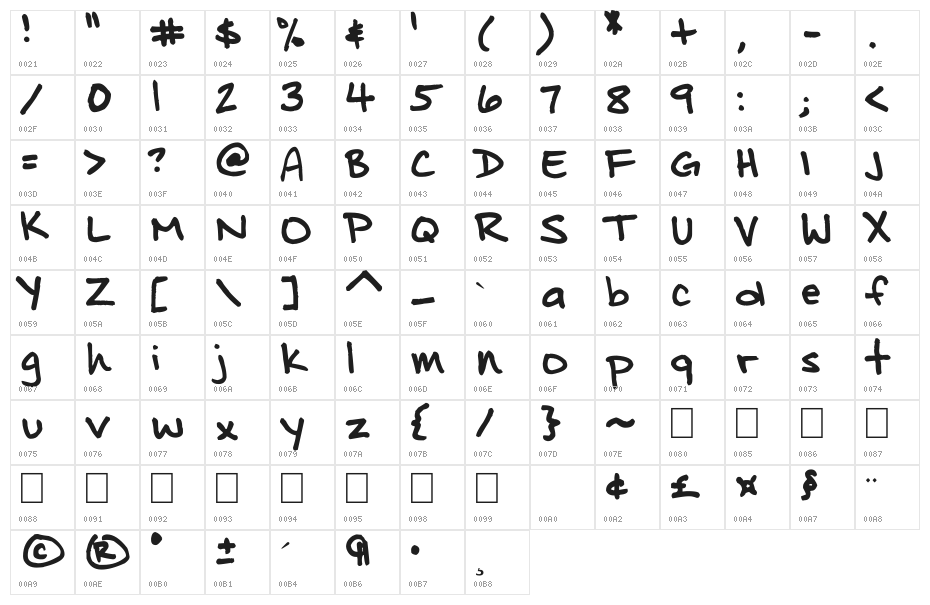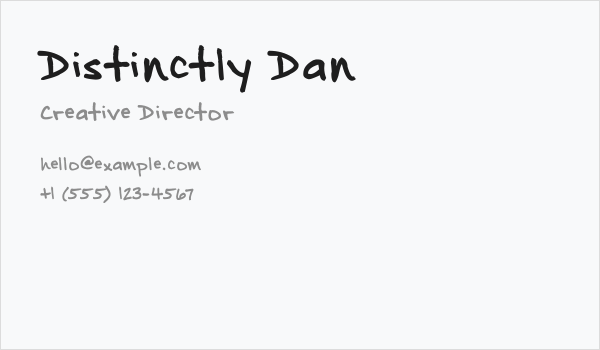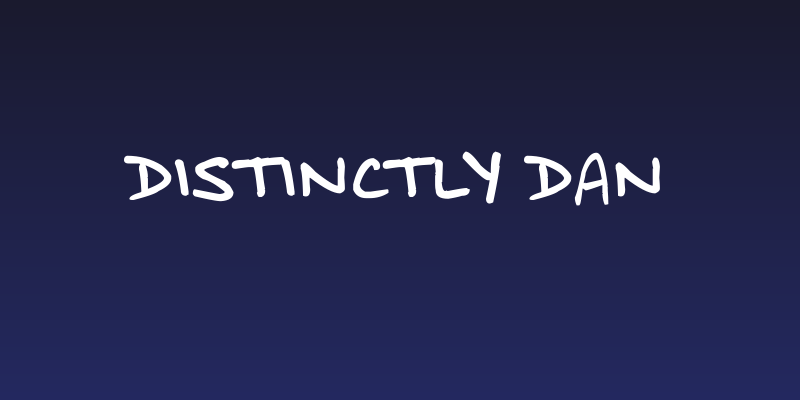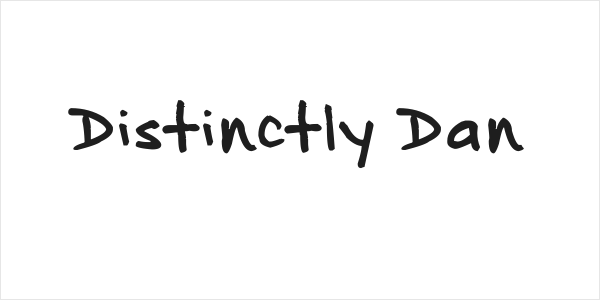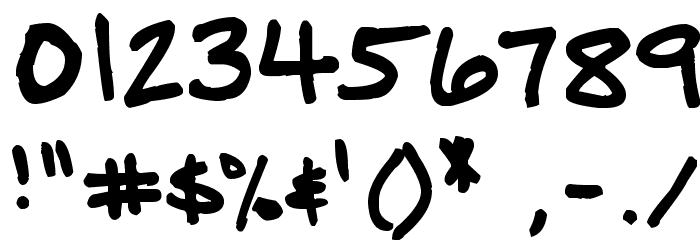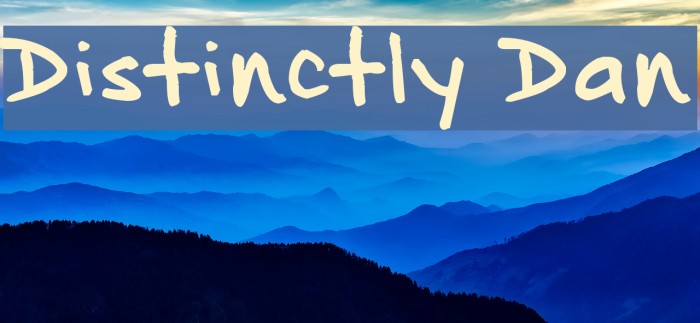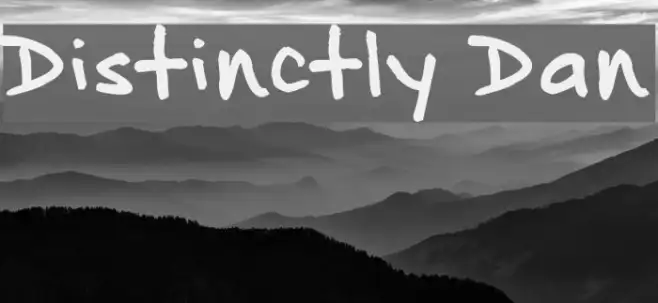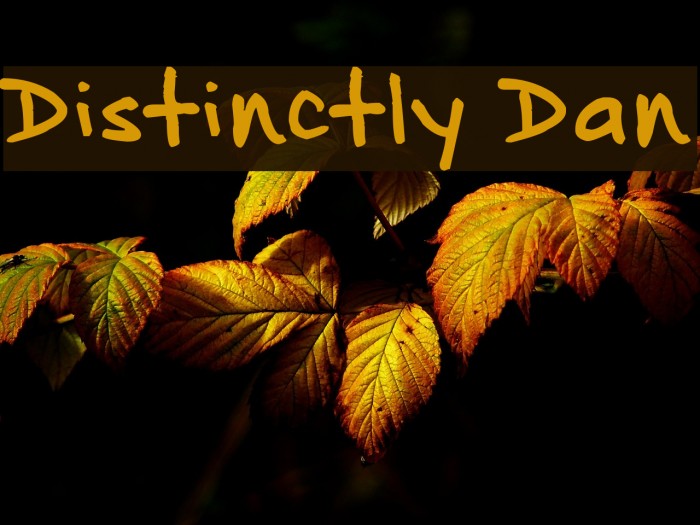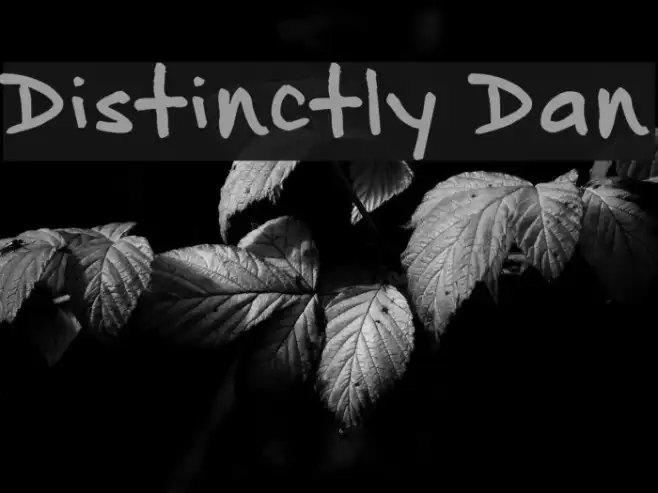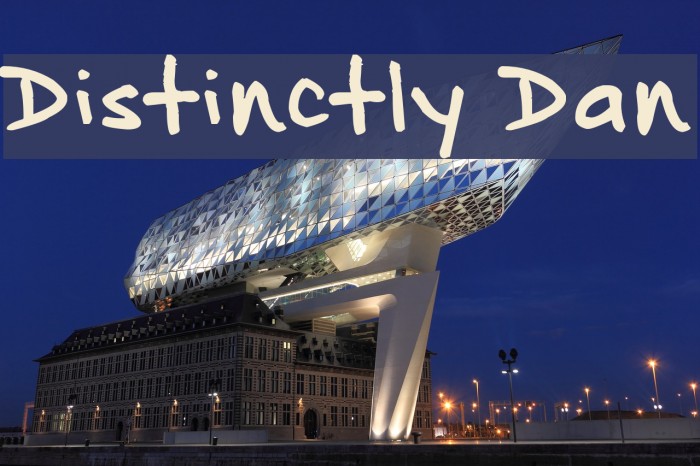
Distinctly Dan Font
Distinctly Dan Description
This font exudes a playful and informal vibe, characterized by its hand-drawn, casual appearance. The letters are bold and slightly irregular, giving them a dynamic and lively feel. The strokes are thick and consistent, with a slight wobble that adds to the handwritten charm. The uppercase and lowercase letters maintain a cohesive style, while the numbers and special characters blend seamlessly with the overall aesthetic. This font is perfect for projects that require a personal touch, such as invitations, greeting cards, or playful branding materials. Its unique style makes it stand out, ensuring that any text is both eye-catching and approachable.
| Overall Style | Playful, Informal |
| Proposed Projects | Ideal for invitations, greeting cards, playful branding, and personal projects. |